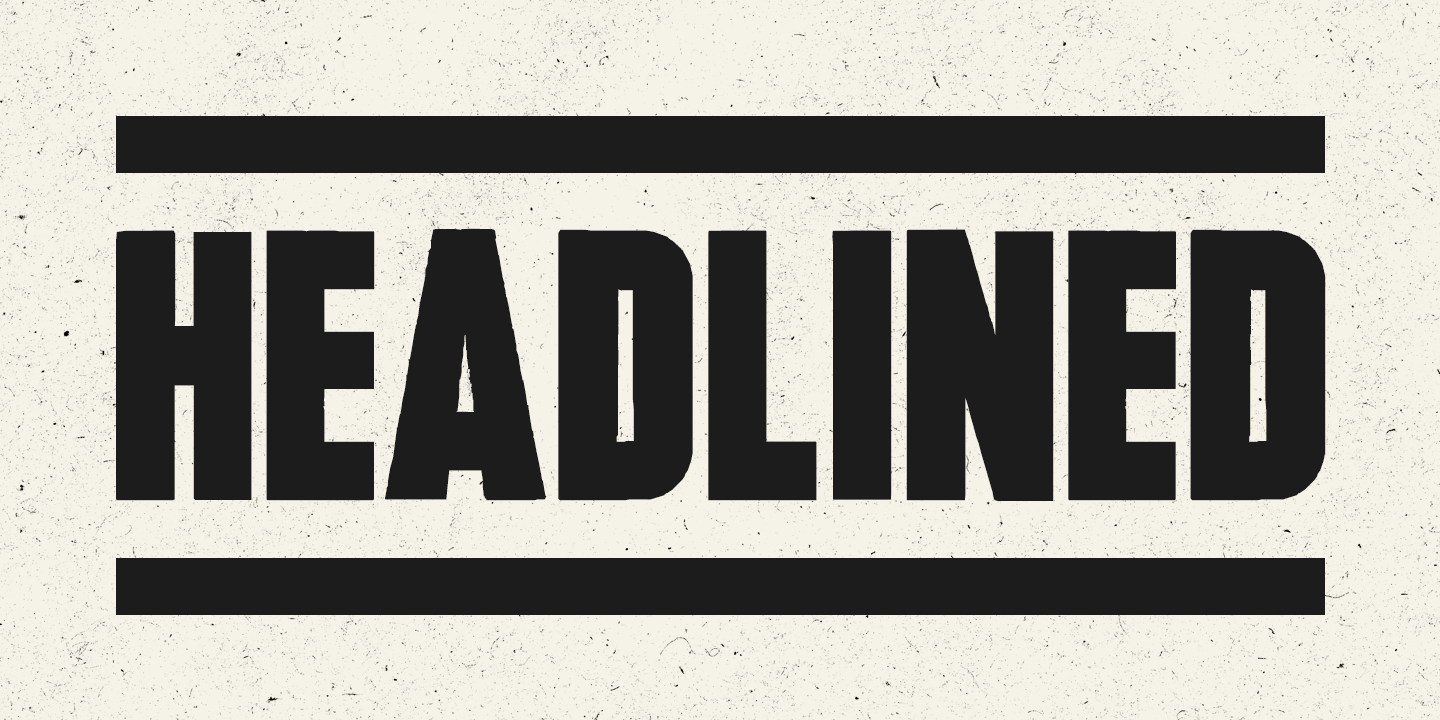
Headlined Solid Font is perfect for newspaper headlines, magazine covers, news website banners, press release formatting, editorial layouts, breaking news graphics, media company branding, and impactful advertising headlines.
Headlined Solid Font is exciting because it embodies the commanding presence and unwavering authority of traditional journalism, translating the bold confidence of front-page headlines into typography that instantly captures attention and communicates urgent importance. This typeface represents the power of words to inform, influence, and inspire action, making every message feel like breaking news worthy of immediate attention.
The Headlined Solid Font family includes Regular, Bold, Black, and Condensed variations, along with impact-enhanced alternates and news-optimized spacing. Each family member maintains the distinctive editorial strength while providing comprehensive options for creating powerful hierarchical information systems that guide readers through complex news content efficiently.
Headlined Solid Font distinguishes itself through its exceptional clarity and commanding visual presence under pressure. The font's robust letterforms and optimized spacing ensure maximum readability even in challenging printing conditions and tight deadline environments, making it particularly valuable for news organizations requiring typography that performs reliably across multiple media formats while maintaining editorial authority and professional credibility.
The media industry applications of Headlined Solid Font make it exceptionally suitable for news organizations, publishing companies, and information-driven brands. Newspapers, magazines, news websites, broadcasting companies, and digital media platforms frequently utilize this font to establish their journalistic credibility while communicating the immediacy and importance of their content. The font's ability to convey both authority and accessibility makes it ideal for reaching diverse audiences with critical information.
Editorial professionals appreciate Headlined Solid Font Free Download for its exceptional performance in high-pressure publishing environments and tight deadline scenarios. The font's reliable character construction and consistent spacing ensure predictable layout results across various production workflows, making it particularly valuable for daily publications, breaking news coverage, and time-sensitive editorial content requiring immediate publication without compromising professional appearance.
The democratic accessibility of Headlined Solid Font extends beyond professional journalism to encompass broader public communication and civic engagement applications. Its clear, authoritative character makes it particularly suitable for government communications, public announcements, emergency information systems, and community organizations requiring typography that communicates important information clearly and credibly to diverse populations.
Contemporary media consumption demands typography that can compete with digital noise while maintaining journalistic integrity and public trust. Headlined Solid Font delivers this balance through its bold presence and reliable functionality, making it suitable for both traditional print journalism and modern digital news platforms requiring consistent brand recognition across multiple channels and devices.